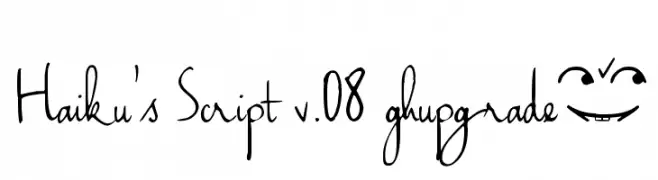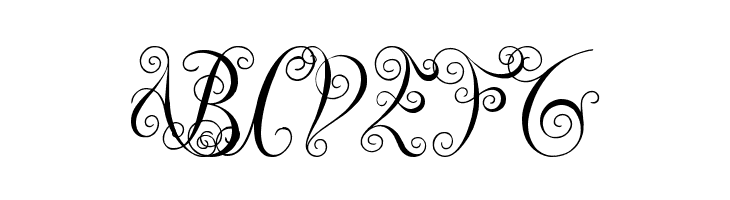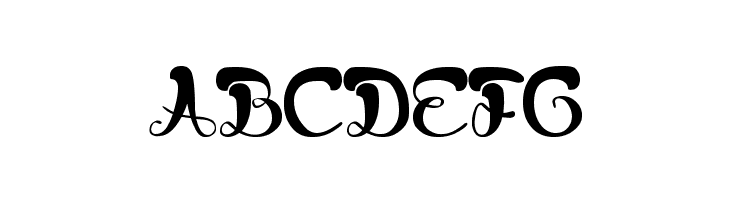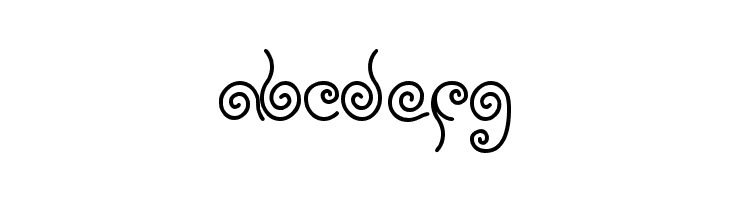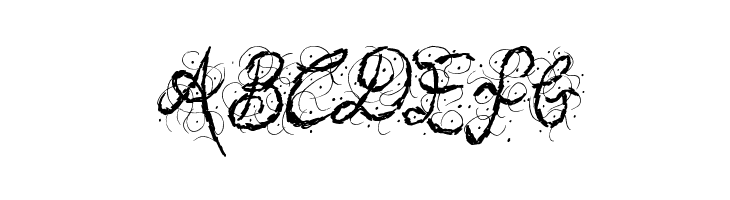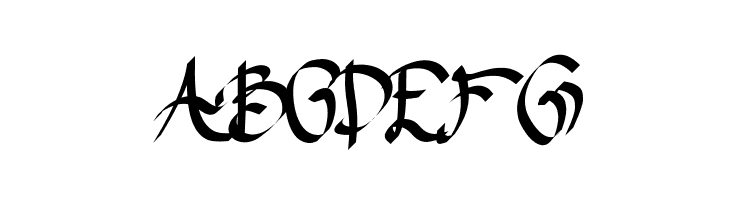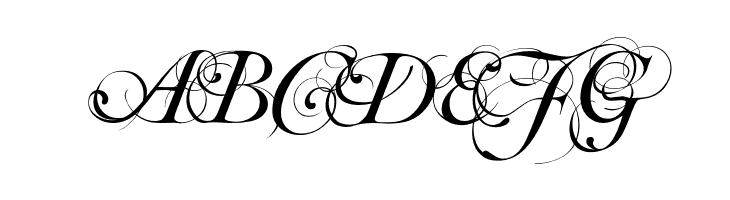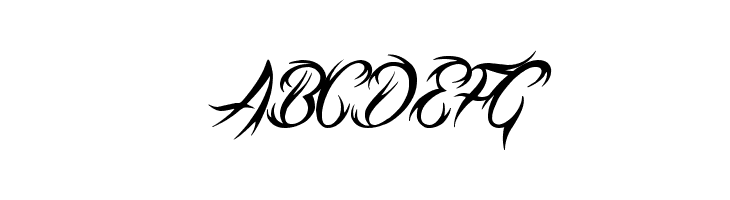
( Font by Jonathan Harris - www.tattoowoo.com )
An ornate script font with intricate swirls and decorative flourishes.
( fontm.com/author/weknow/ )
A whimsical, curly font with intricate swirls and consistent stroke thickness.
( Fonts by www.fontscafe.com )
An ornate, decorative font with bold, calligraphic strokes and elaborate flourishes.
( Font by Jonathan Harris - www.tattoowoo.com )
An ornate, decorative script font with elaborate swirls and flourishes.
( Fonts by www.aka-acid.com )
A bold, gothic-inspired font with intricate details and dramatic flair.
( Fonts by www.aka-acid.com )
An ornate script font with elaborate swirls and flourishes.
( Fonts by Poemhaiku - Huong Le Thi Thu - www.behance.net/poemhaiku )
A playful, whimsical handwritten font with fluid strokes and a dynamic feel.
( Font by Jonathan Harris - www.tattoowoo.com )
A bold, decorative font with tribal-inspired elements and intricate detailing.